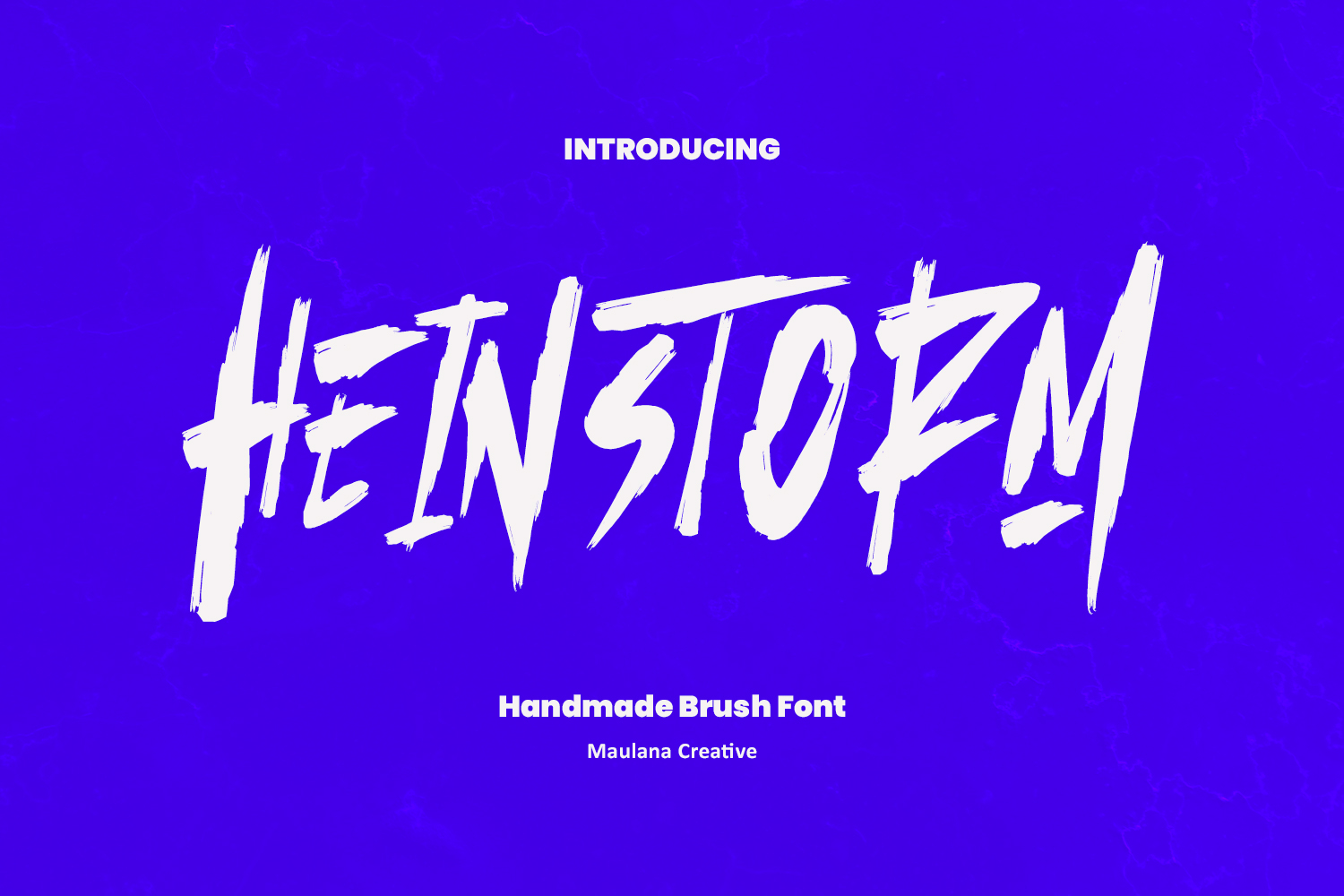
Heinstorm is a handmade brush font with a sharp, bold, and energetic style, perfect for creating an intense atmosphere during Halloween and the end of the year. With bold brushstrokes and dramatic effects, this font evokes a modern horror, street-style feel, and explosive energy, perfect for Halloween party poster designs, album covers, streetwear branding, games, horror films, and even vibrant end-of-year promos.
This font will make your designs stand out, fill you with power, and leave a bold impression—ideal for those looking to stand out in the global digital marketplace.